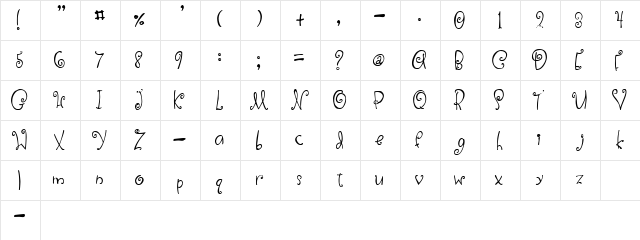
2Peas DW Curls and Swirls Regular Font Preview
2Peas DW Curls and Swirls Regular
Design Context for 2Peas DW Curls and Swirls Typeface
2Peas DW Curls and Swirls brings ornamental detail and strong personality to headlines and identities, where visual impact matters more than quiet functionality.
Font Pairing: Pair with a clean neutral sans-serif for body copy to let 2Peas DW Curls and Swirls's character lead without overwhelming the composition.
Pro Tip: Treat 2Peas DW Curls and Swirls as the centrepiece of your typographic hierarchy. One strong heading set in a decorative face can carry an entire layout.